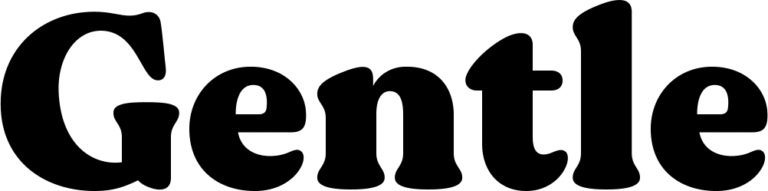
Seriffity Font
Here we are again to introduce you to Seriffity, a serif font that carries a sense of professionalism, respect, classic, confidence, and momentum. To get further steps above in posters, flyers, menus, invitations, and product logos, never overlook a typeface such as Seriffity. As the last word, if you are looking for more fonts in the same mood, we offer to visit our reliable archive.